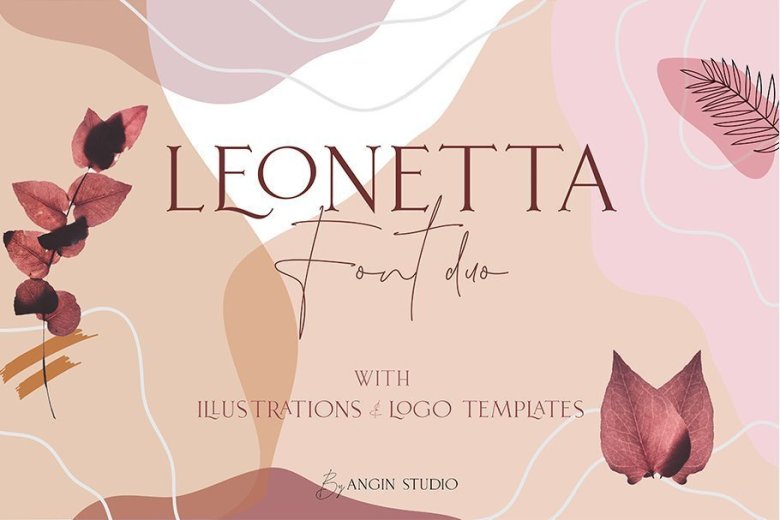
Leonetta Font Duo Free
Leonetta Font Duo a perfectly paired elegant Leonetta Serif with luxury handwriting style *Leonetta Script**. Leonetta Script was designed to imitate a natural handwriting text, comes with ligatures and alternates character to achieving the natural ways of writing and having beautiful visual appear,
*Leonetta Serif** comes with bunch of ligatures and alternates with attractive visual appear will give you the fleksibility to mix and match the letter so it can speak visually the way you speak. This font is free for PERSONAL USE. Link to purchase full version and commercial license: HERE